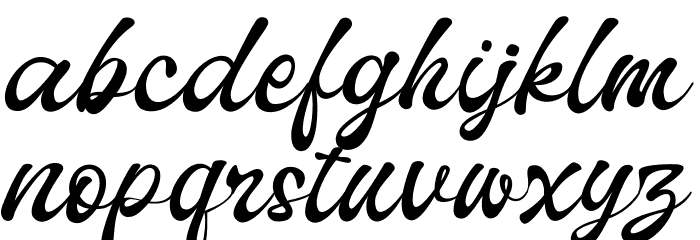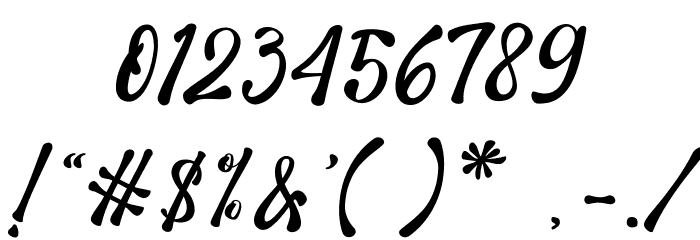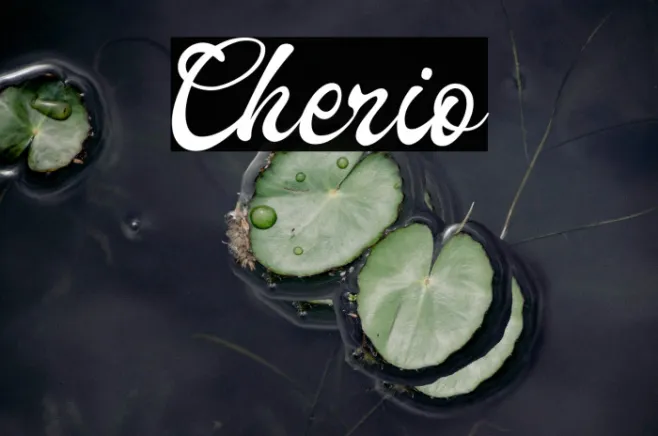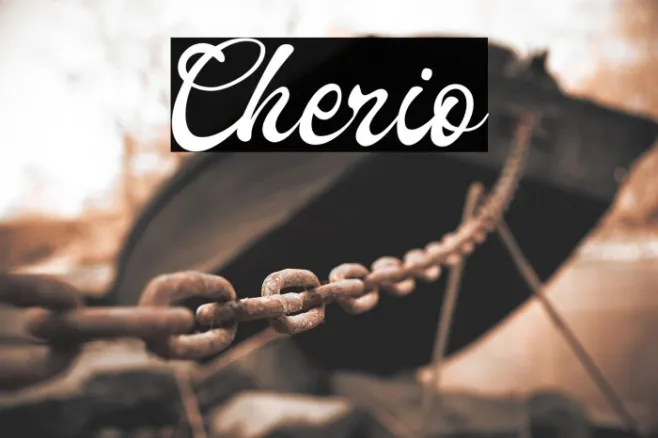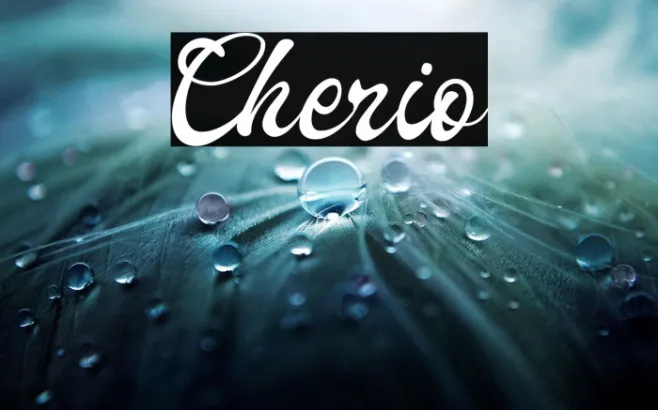
Cherio Font
This font exudes a classic script style with a flowing, cursive design that is both elegant and dynamic. The letters are interconnected, creating a seamless and fluid appearance. The uppercase characters are slightly more ornate, with flourishes that enhance their sophisticated look. The lowercase letters maintain a consistent style, with smooth curves and rounded edges. The numerals are clear and legible, matching the overall aesthetic of the alphabet. Special characters are thoughtfully designed to complement the script style, adding versatility to the font. This font is ideal for projects that require a touch of elegance and sophistication.
A classic, elegant script font with flowing, interconnected letters.
- Font: Cherio
- Proposed Projects: Ideal for wedding invitations, elegant branding, greeting cards, and upscale packaging.
- Category: Script
- Character Spacing: Tight
- Overall Style: Classic
- Use Case: Logos, Invitations, Decorative text